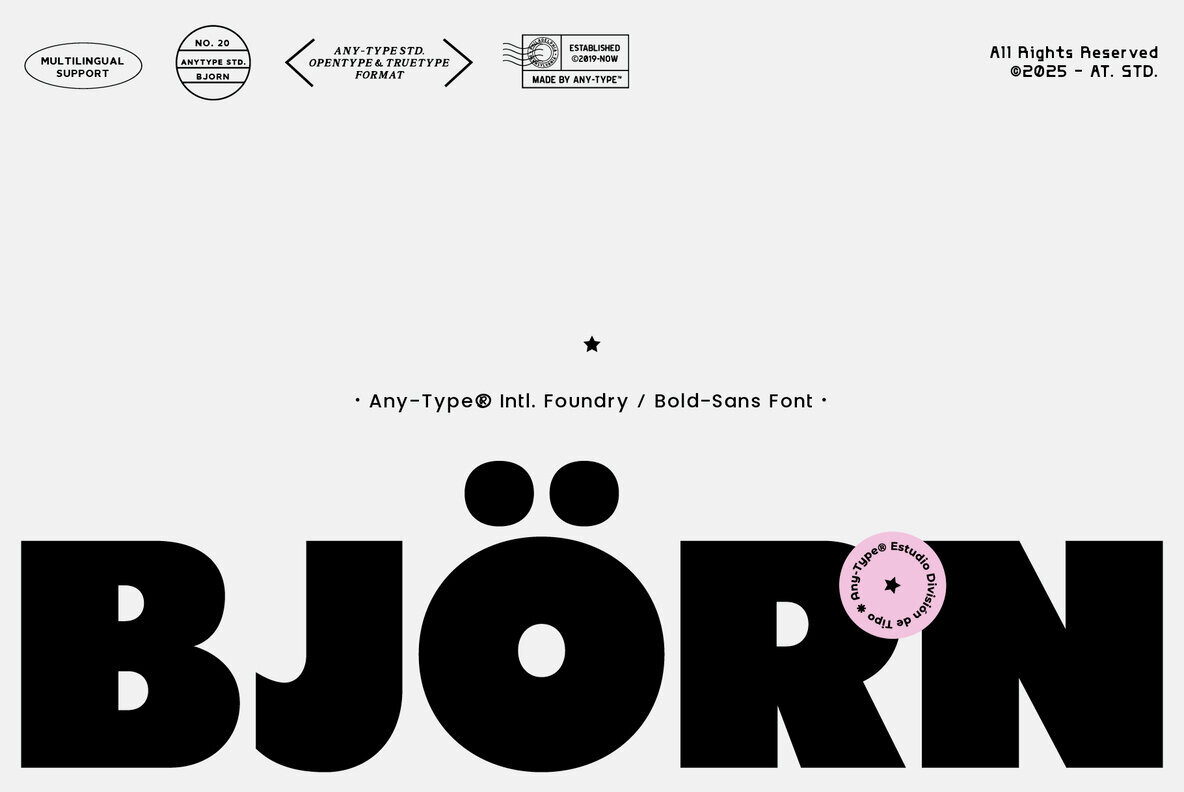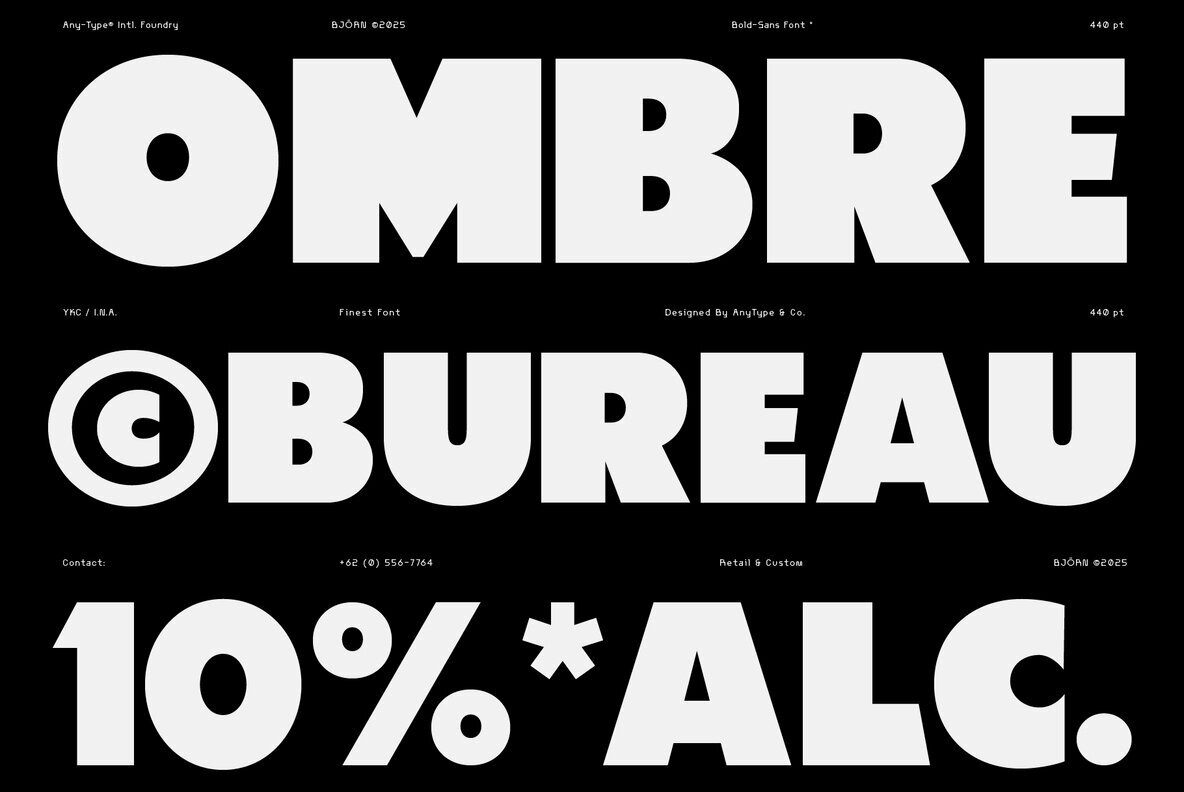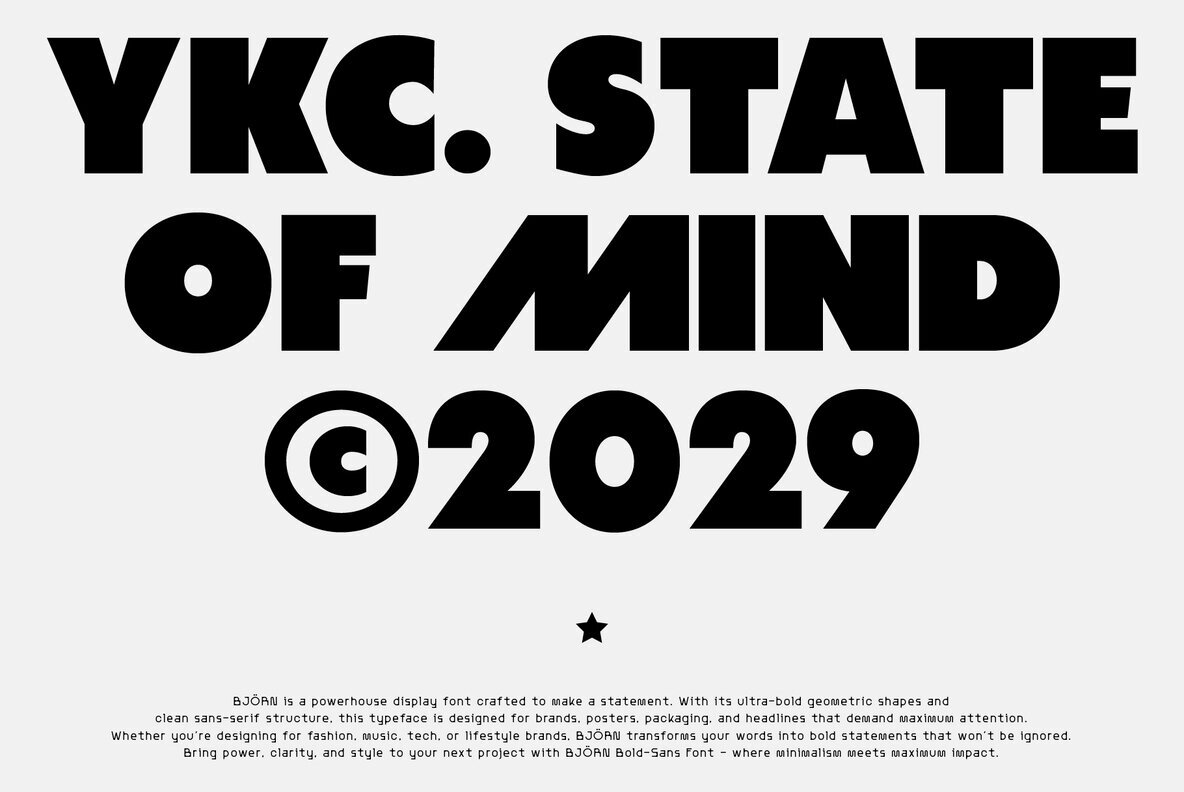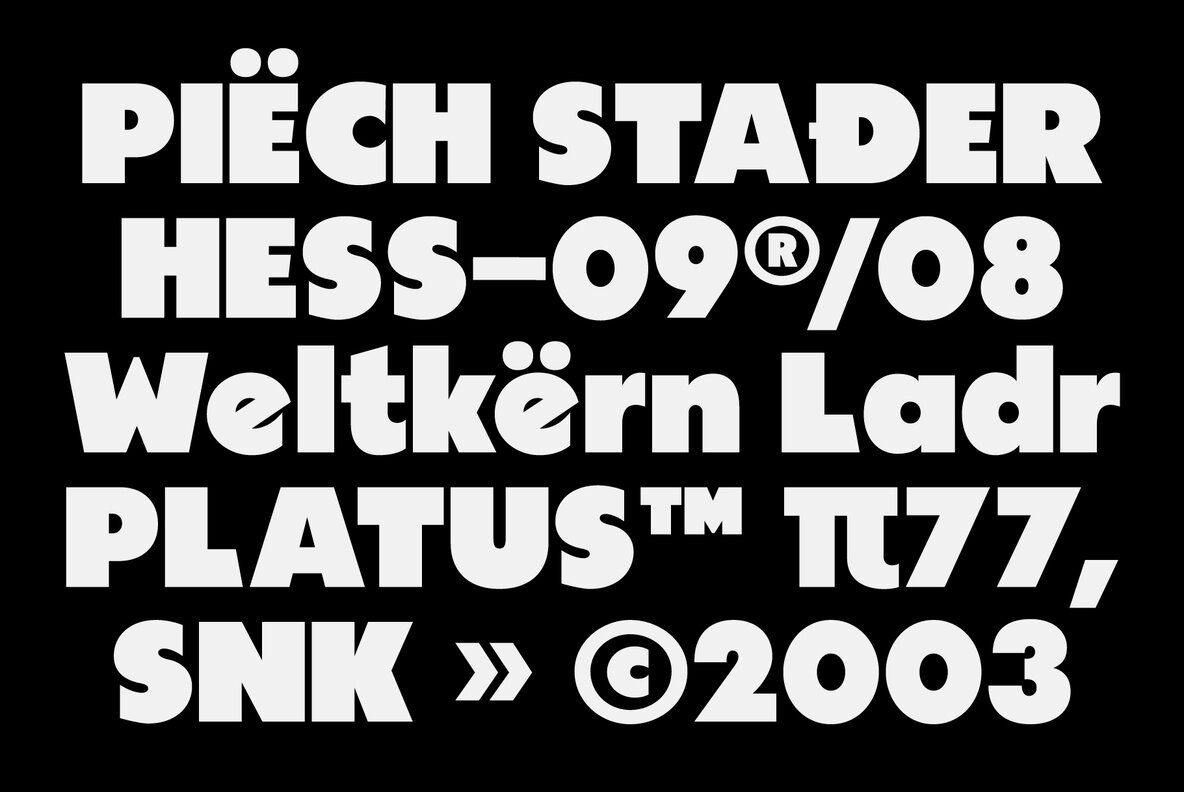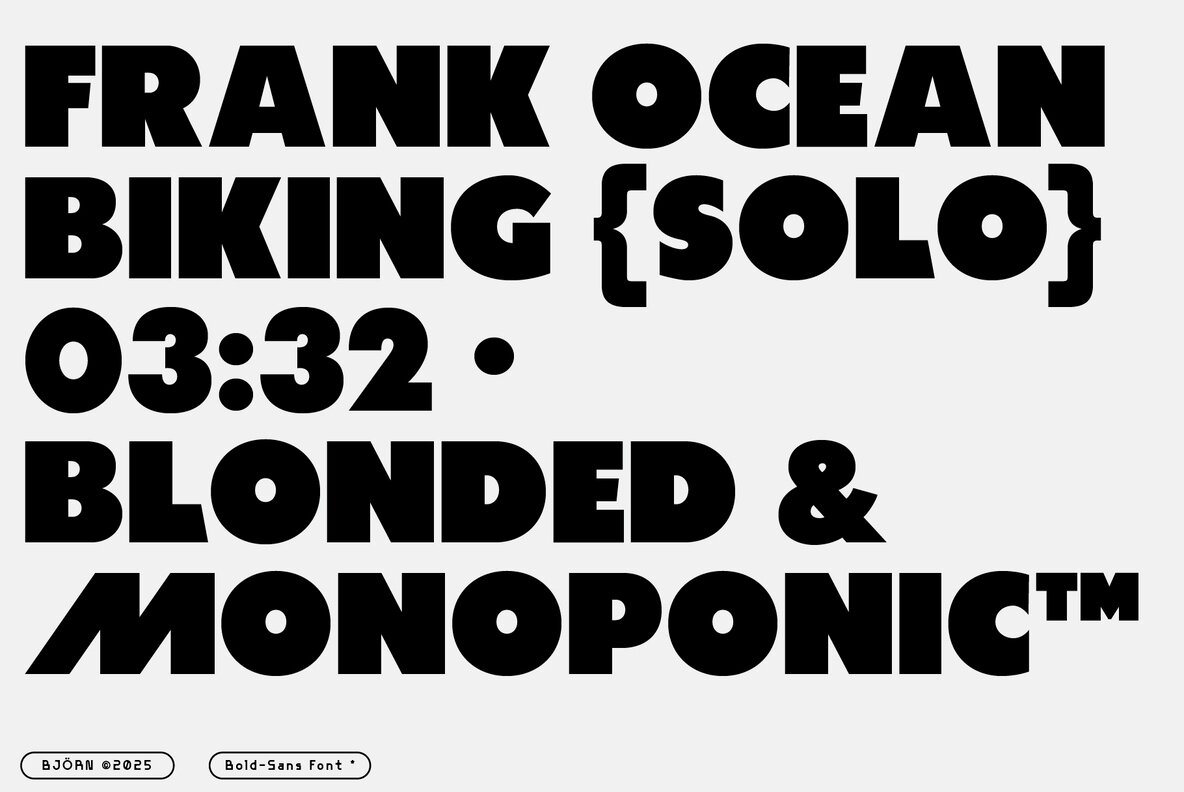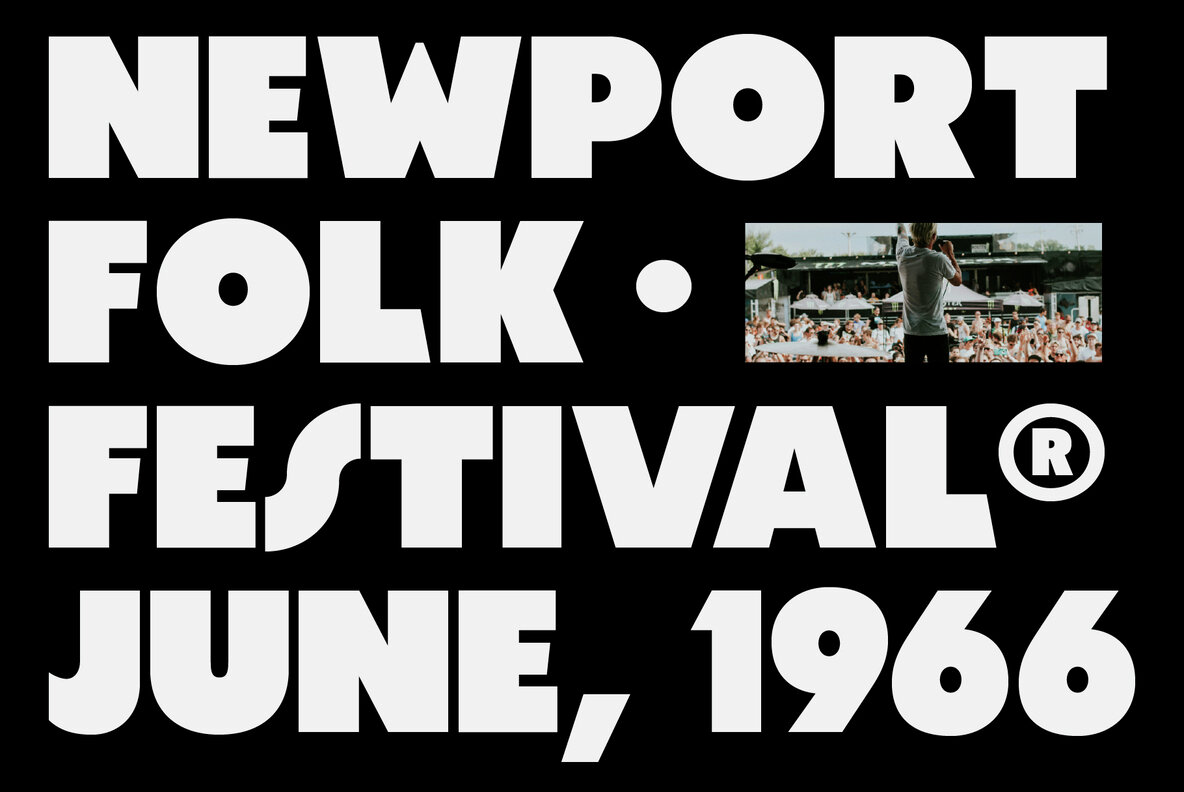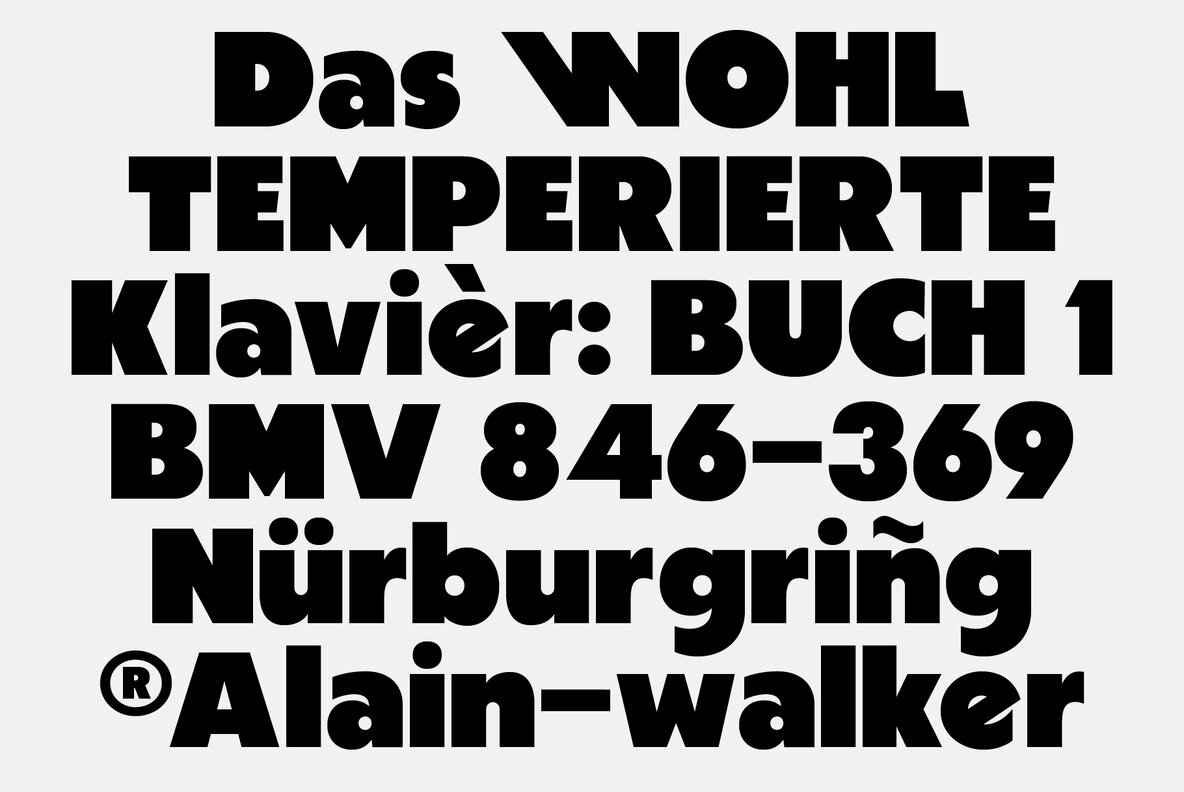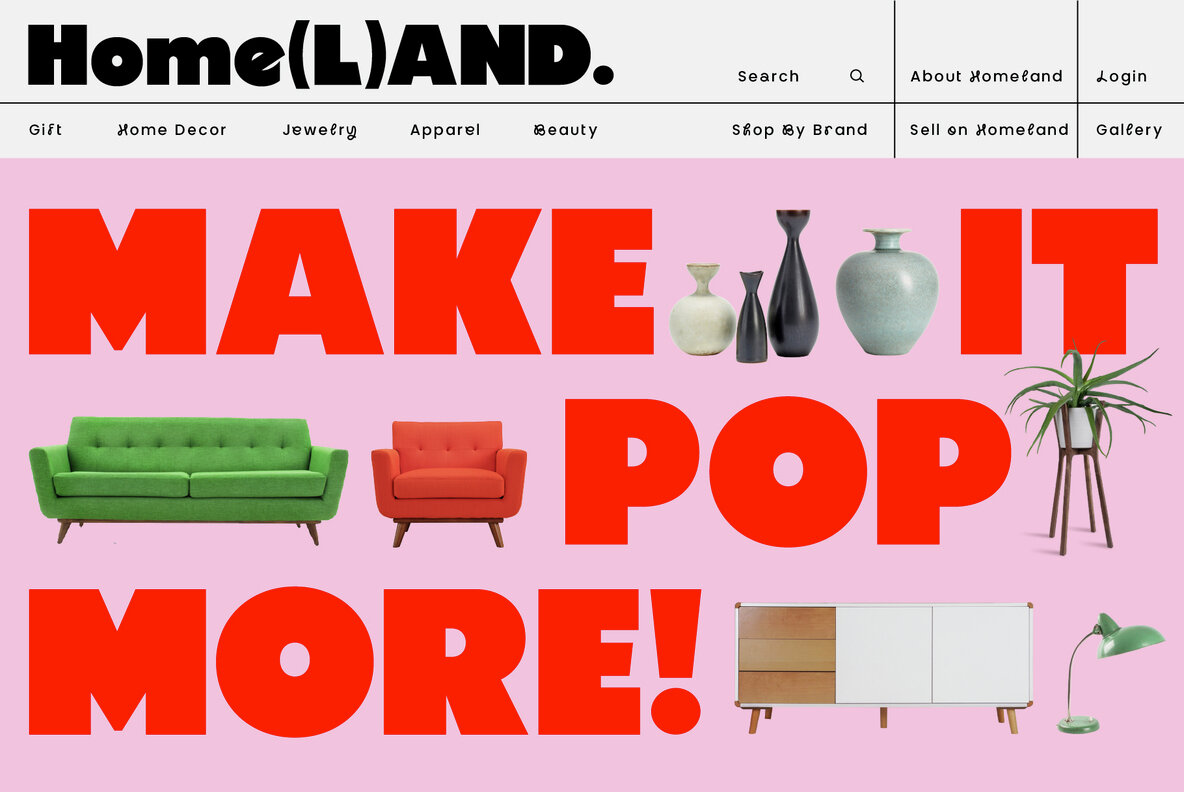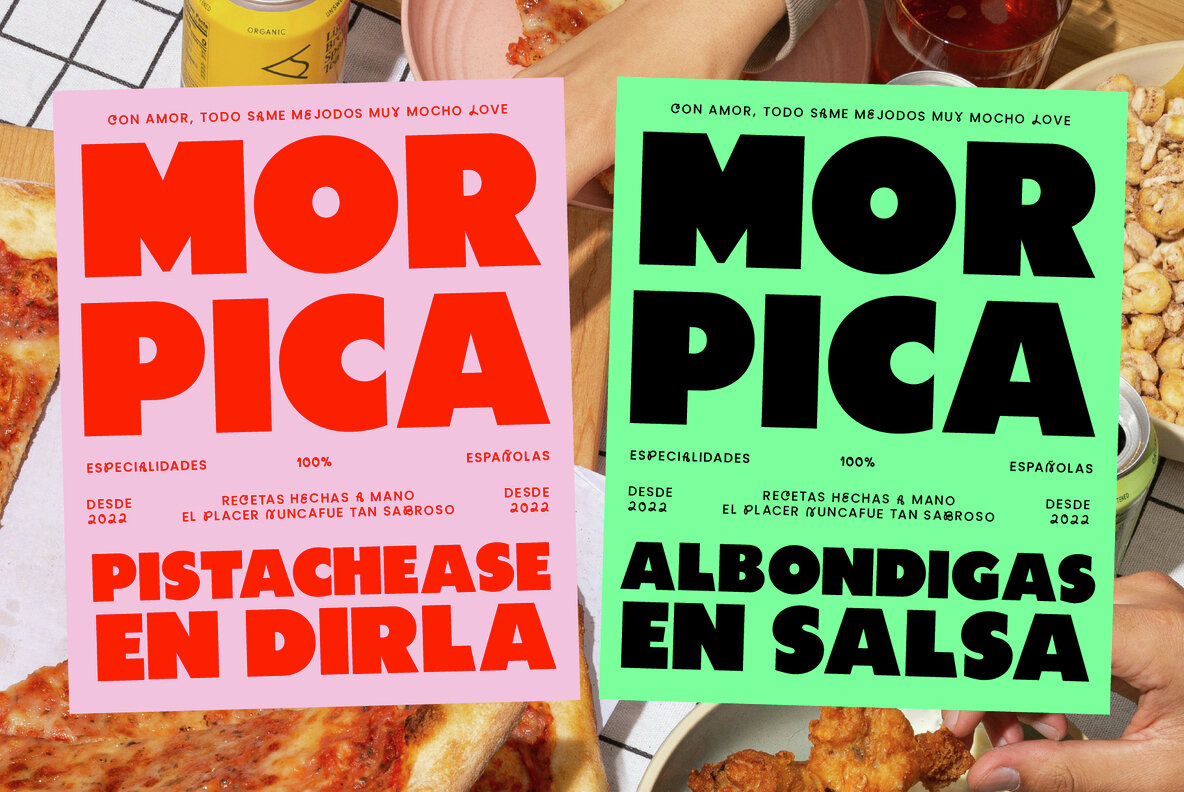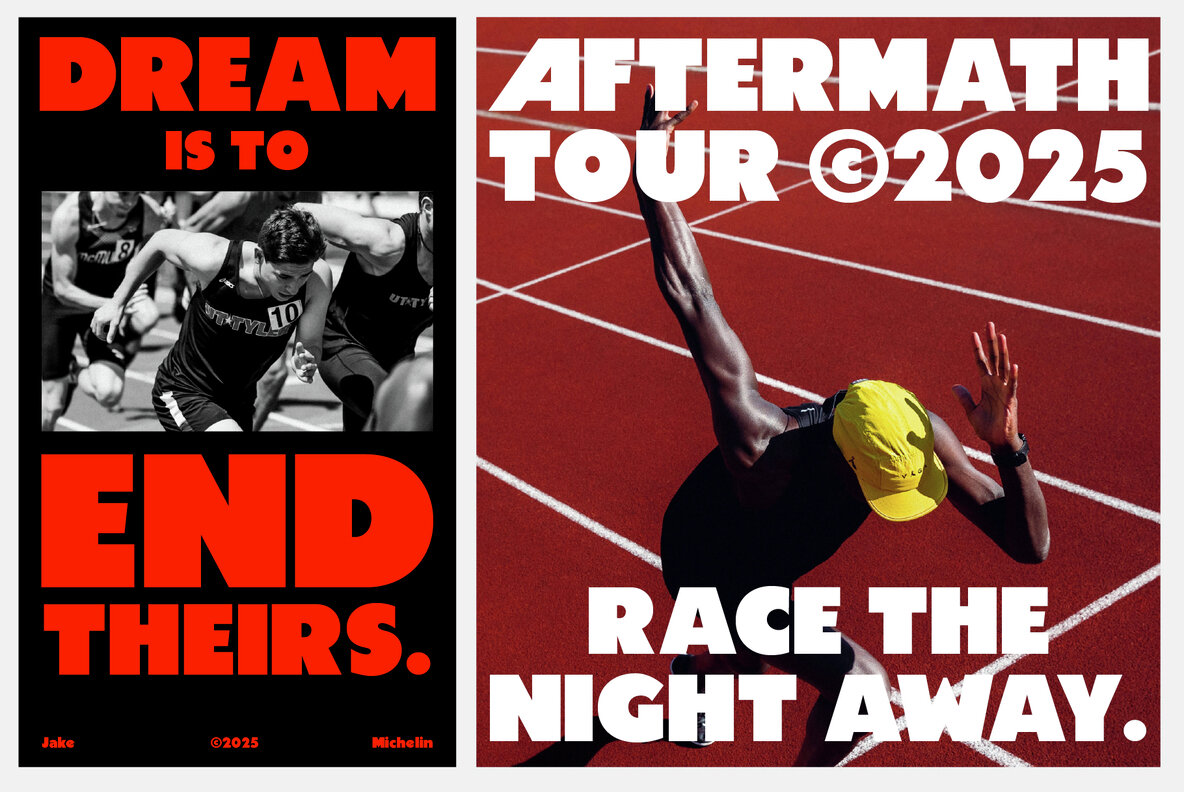
BJORN Font
AT Bjorn Bold
Make an impact with BJÖRN, an audacious sans-serif typeface that embodies modernity and strength. Designed with an ultra-heavy weight and a precise geometric form, this font is ideal for commanding headlines, dynamic posters, distinctive logos, and progressive editorial layouts. BJÖRN seamlessly merges functionality with flair, accommodating multilingual projects with ease. Its minimalistic yet impactful design caters to professionals seeking a refined edge in their creative endeavors. This typeface is perfect for those crafting in sectors such as fashion, technology, music, or innovative branding, ensuring your vision is communicated with authority and style.BJÖRN: Bold Sans Serif for Striking Statements